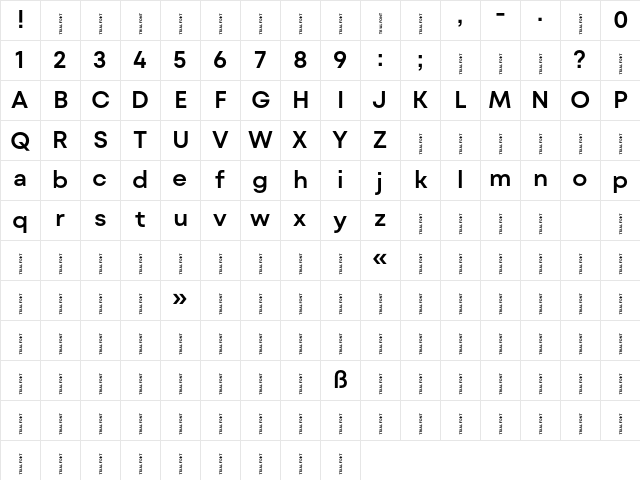
Mont Blanc-Trial SemiBold Regular
Foundry: Svetoslav Simov
Designer: Svetoslav Simov, Vika Usmanova
Design Context for Mont Blanc-Trial SemiBold
Mont Blanc-Trial SemiBold is a composed and adaptable typeface that performs quietly and consistently across a wide range of design contexts. Its bold stroke weight gives it real presence on the page.